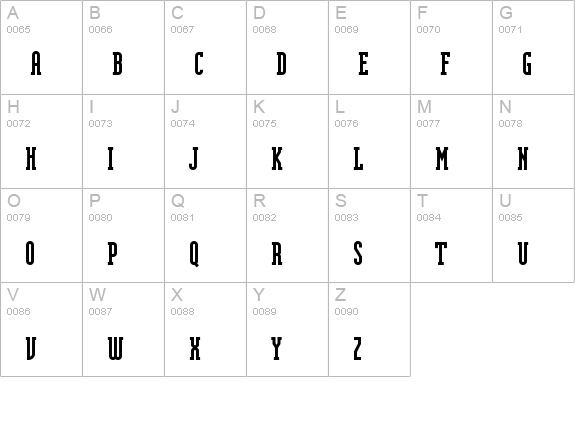
ModularSerifBlack Font Details
ModularSerifBlack is a bold and powerful typeface that commands attention with its strong, structured serifs and modern design. This font exudes a sense of sophistication and elegance, making it perfect for headlines, logos, and other display purposes. Its versatility allows it to be used in a variety of design projects, from branding to editorial layouts. What sets ModularSerifBlack apart is its unique modular construction, which gives it a distinctive and memorable look. The sharp serifs and clean lines provide a sense of stability and authority, making it an excellent choice for conveying a sense of professionalism and confidence. Best of all, ModularSerifBlack is available for free download at FontsMarket.com. This means you can easily access this stunning font and incorporate it into your projects without any cost. Don't miss out on adding ModularSerifBlack to your font collection today!